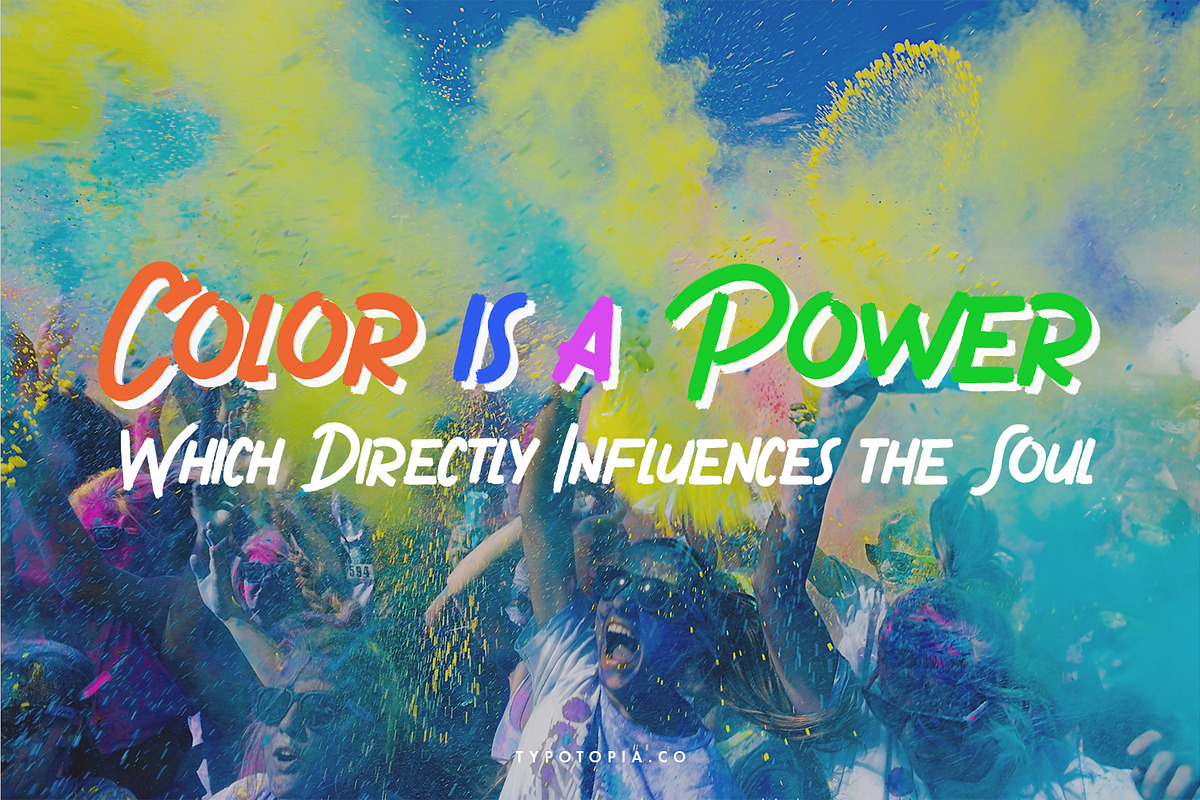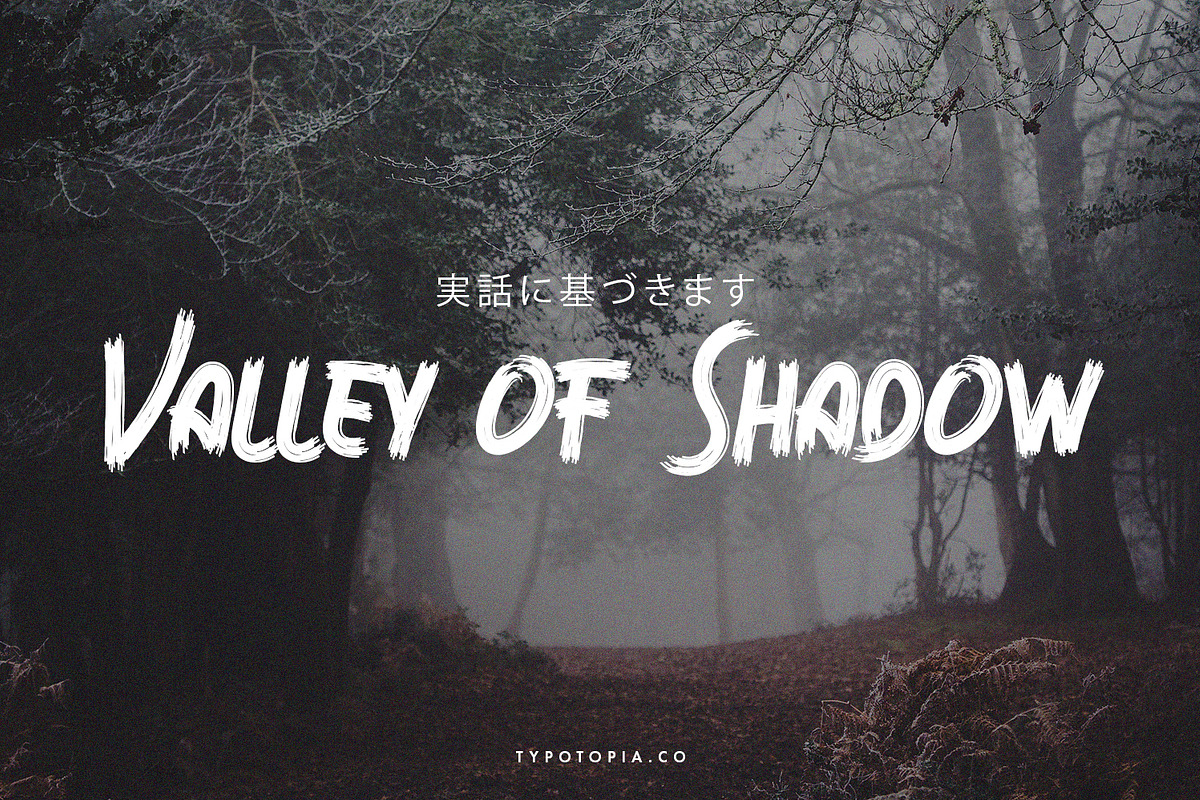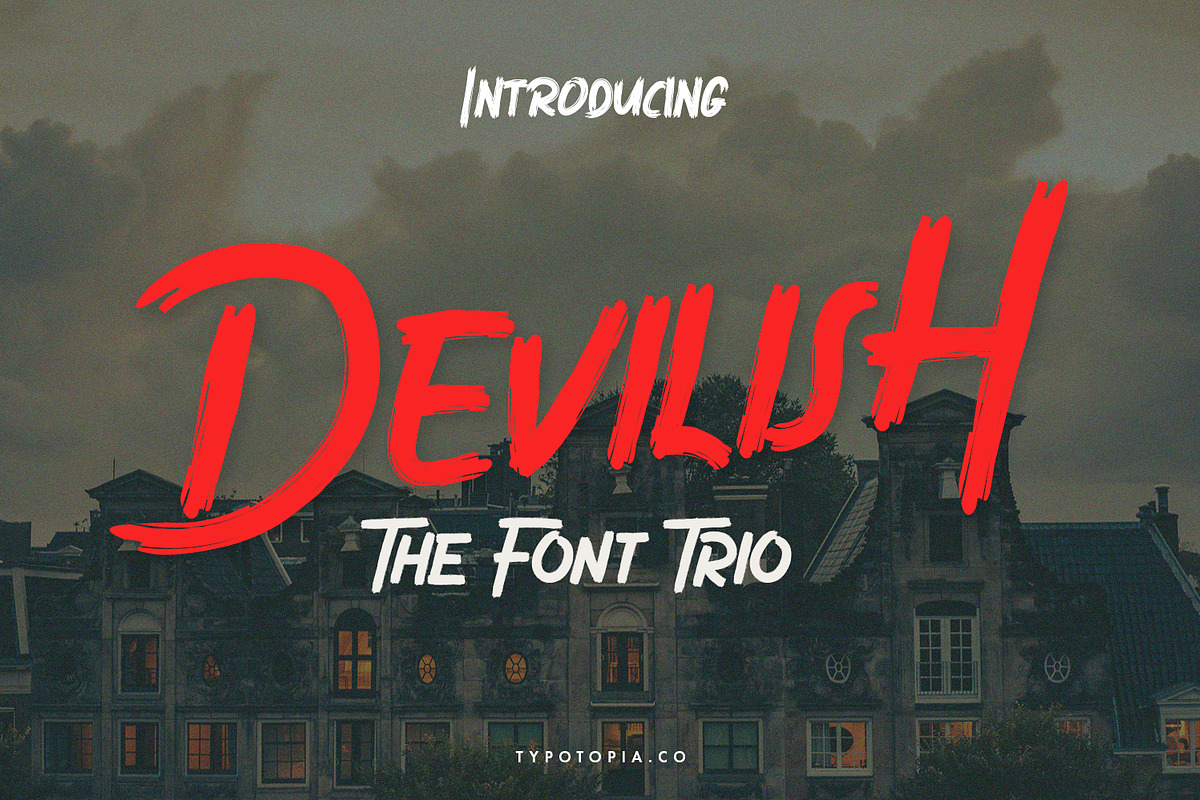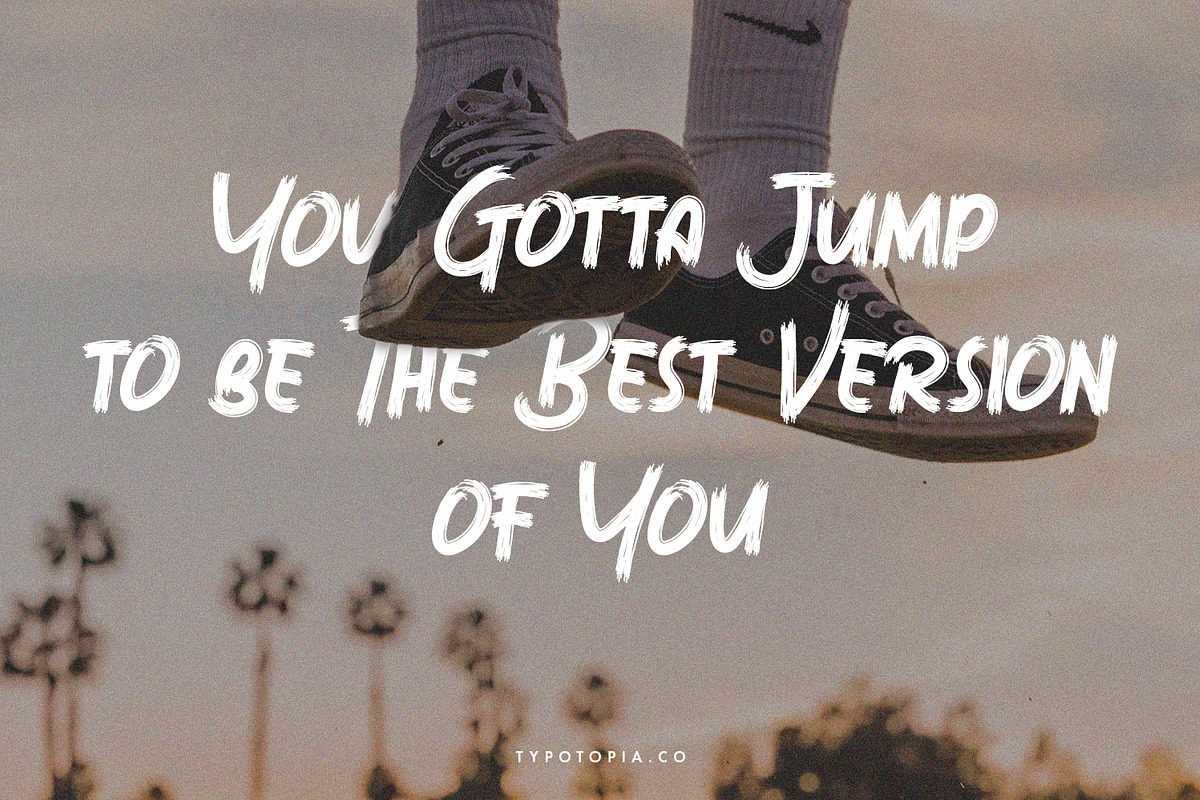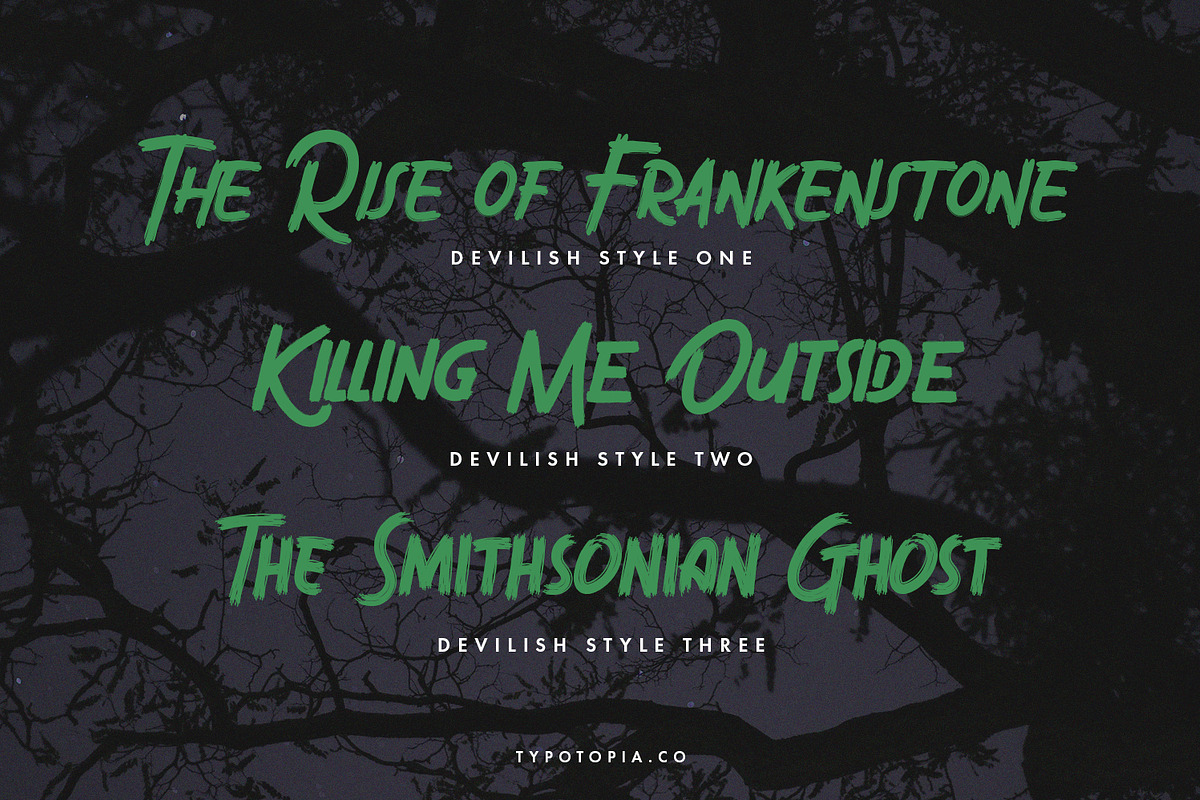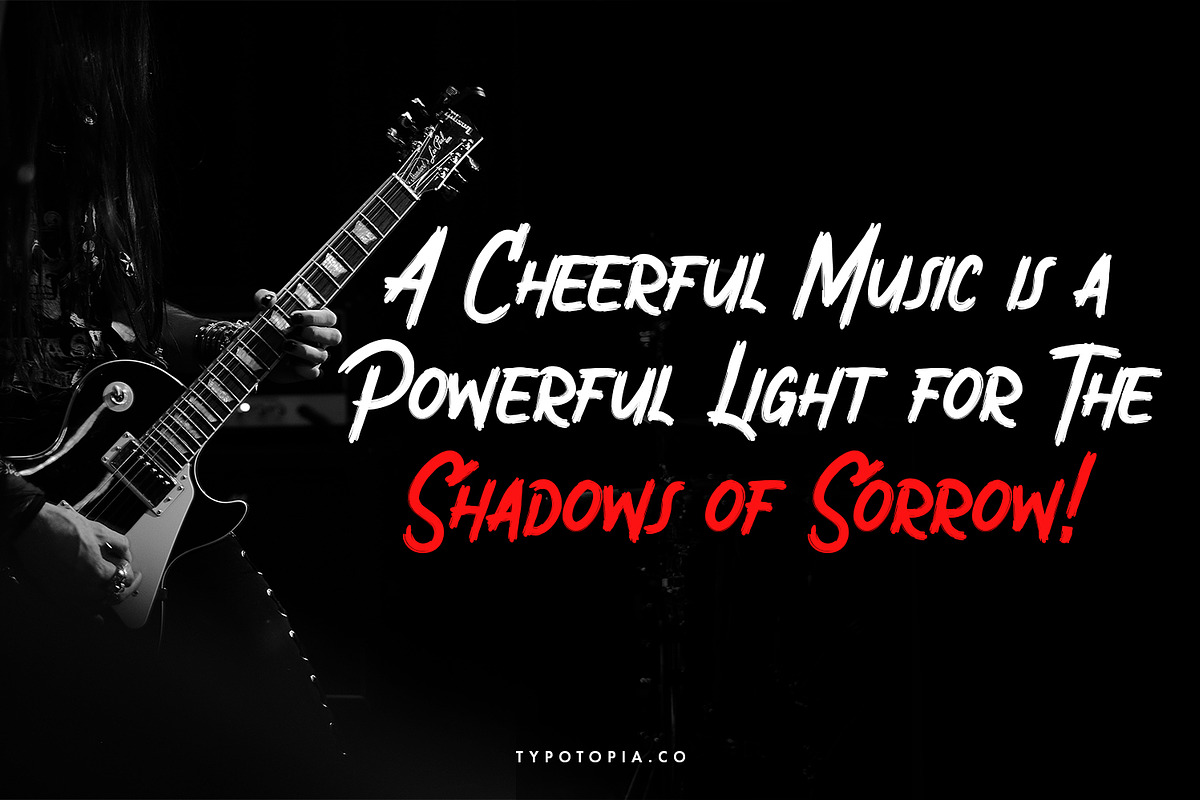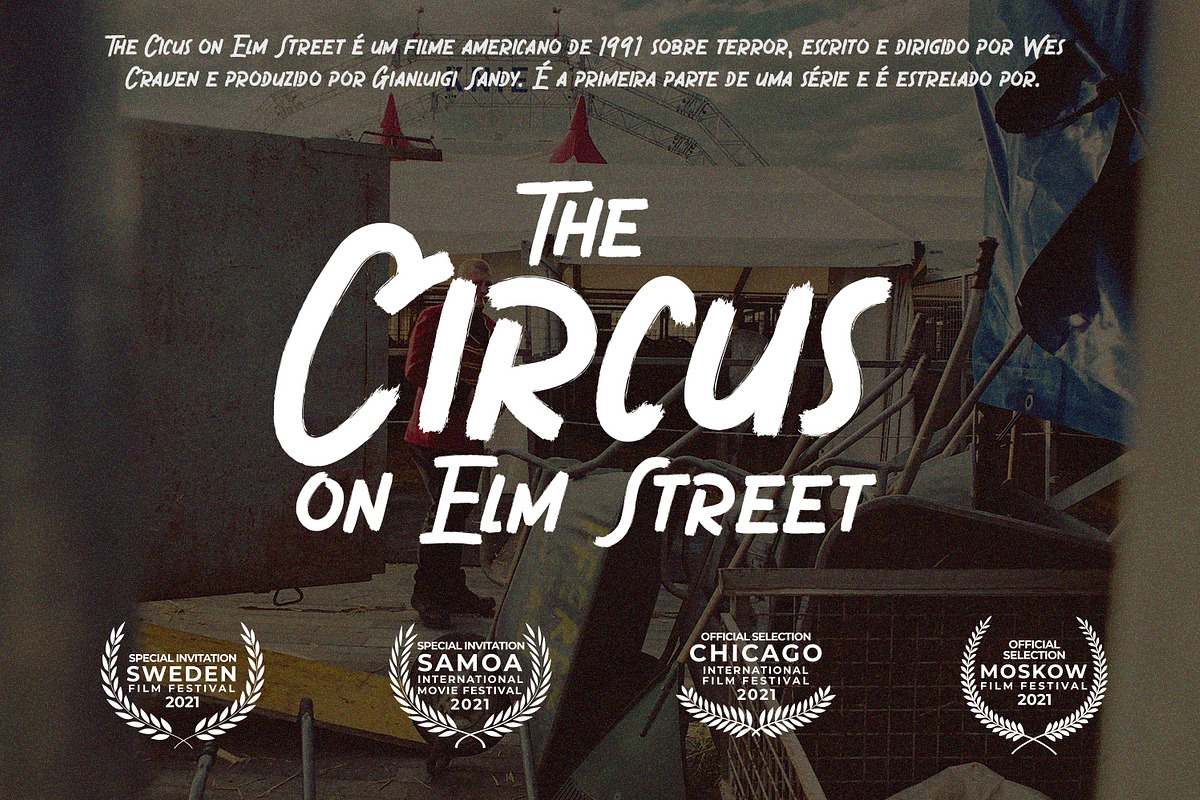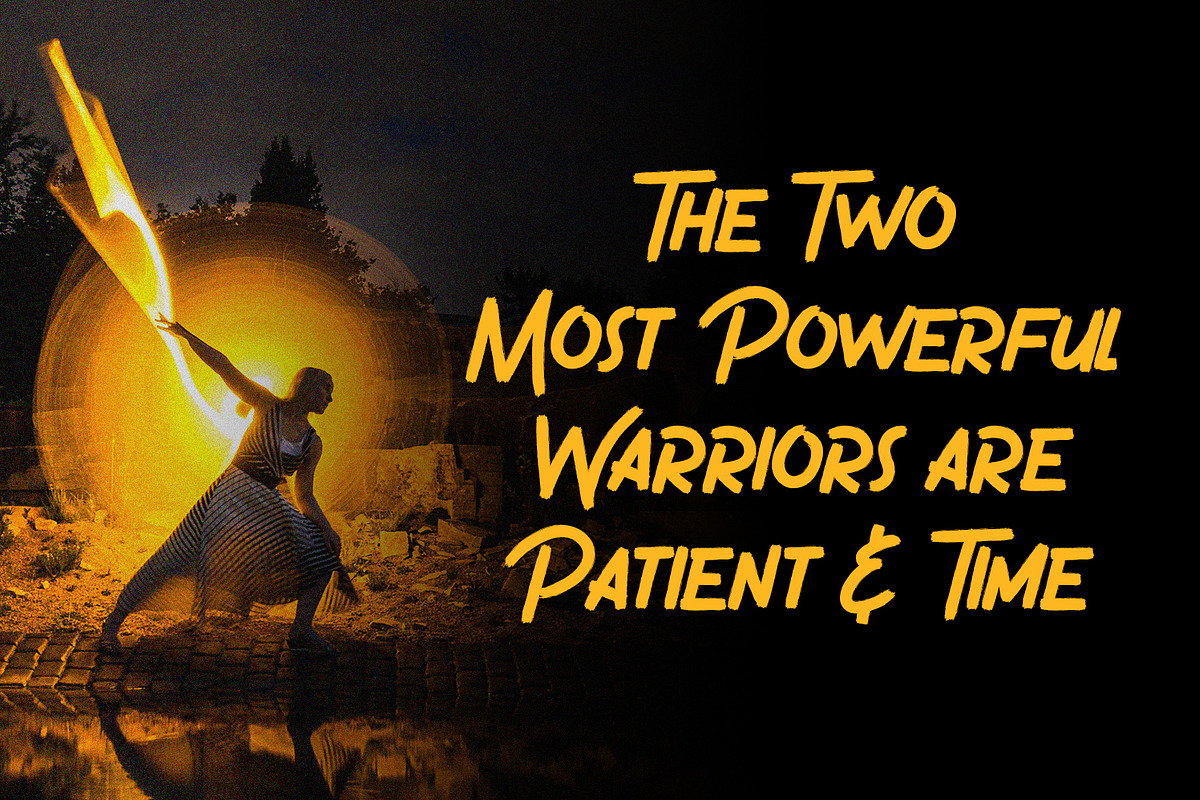
Devilish - The Font Trio
We're Proudly Introduce to all of you, Devilish, The Trio Font. This Typeface Comes with 3 Style of Fonts that you can use.
Devilish is the great choice for several purpose, it suitable for for headline, logotype, apparel, invitation, branding, packaging, advertising etc.
Devilish also Support Multilingual Feature for Foreign Language, here’s the list :
áäåãéèëìïîòöôøùüAÀÁÂÃÄÅEÈÉÊËIÌÍÎÏNÑOÒÓÔÕÖUÙÜÚÛYÝŸ?Ÿ
What are the main Features on This Fonts :
Uppercase & Lowercase letters
Devilish - The Font Trio by edukka fits naturally into Branding, posters, packaging, typography.